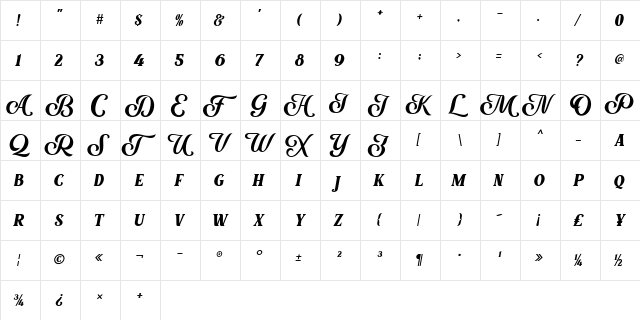
Marons Regular
| Foundry | Alit Design |
| Designer | Alit Suarnegara |
Design Context for Marons Typeface
Marons is a composed and adaptable typeface that performs quietly and consistently across a wide range of design contexts.